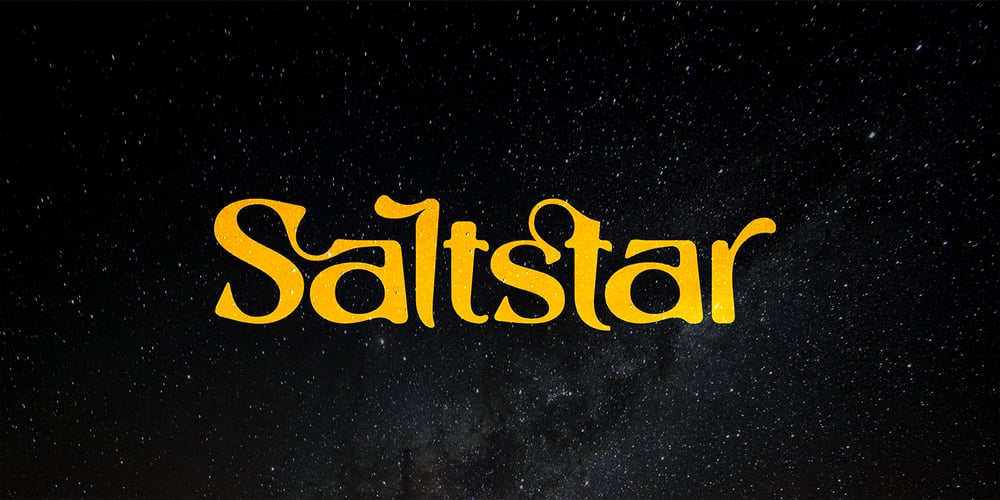
Saltstar Font Family was designed by Jarnawi Saja and published by Grontype. Saltstar contains 1 styles and family package options. Saltstar is an modern elegant san serif font, created with care. The font is rounded point and unique shapes. It come with extra ligatures and alternative. This font is specially created for your branding need such as invitational card, flyer font, magazine heading layout and any other project. Saltstar Features: Uppercase Characters Lowercase Characters Numerals, Punctuation, Currency etc Multilingual Support Thankyou for choosing this font, Happy creatingRegard, Grontype